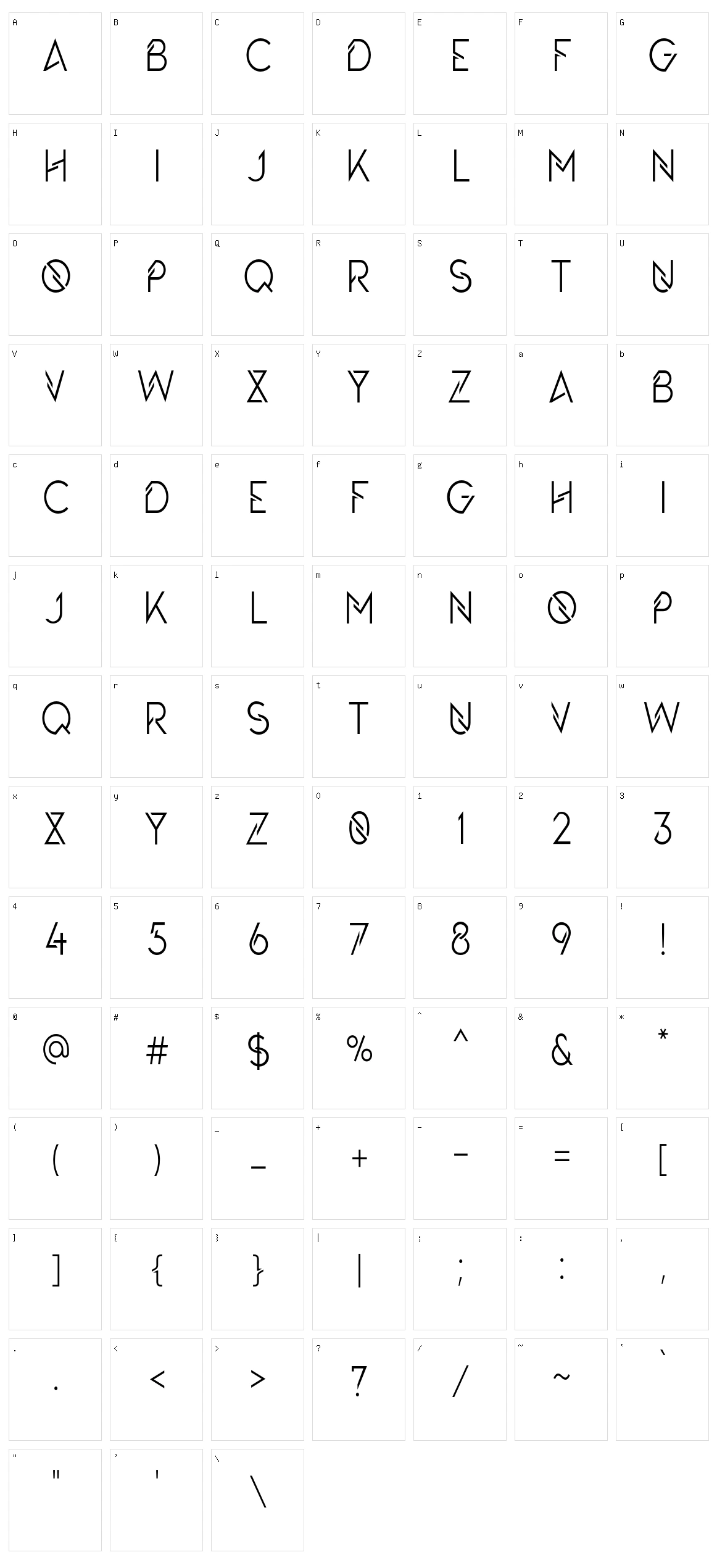
The free font The Queens Gambit is carefully designed by 177Studio, showcasing a thoughtful balance of creativity and usability and falls under the Distorted font style. When you download the ZIP file, it contains only 167.23 KB of font files, making it lightweight and quick to download. Please review the license details below to understand permitted usage and distribution rights. If license information is not available, we recommend using this font for personal projects only or contacting the author directly for commercial usage permissions.